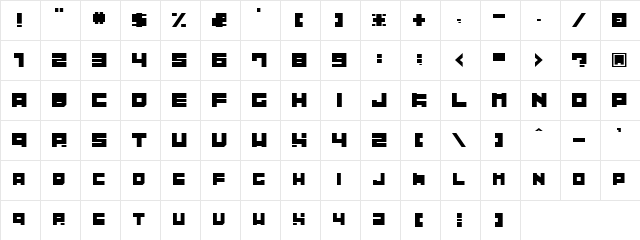
Tibitto Regular
Design Context for Tibitto
Tibitto is a composed and adaptable typeface that performs quietly and consistently across a wide range of design contexts.
Pro Tip: Use Tibitto in both headline and body roles to test its range before committing to a single application.